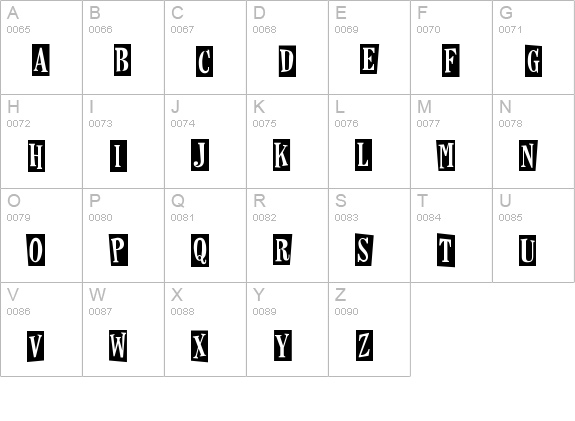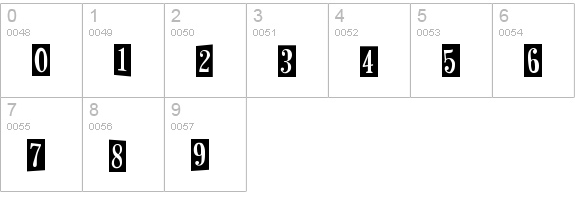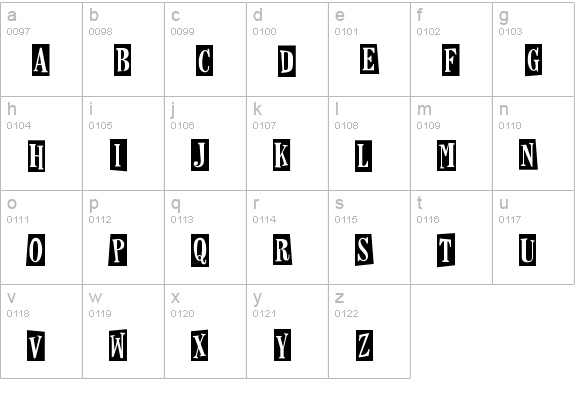
Horseshoes And Lemonade Font Details
Horseshoes And Lemonade font is a charming and whimsical typeface that exudes a sense of rustic charm and nostalgia. Perfect for adding a touch of handmade warmth to your designs, this versatile font is a great choice for a wide range of projects, from invitations to branding to social media graphics. With its playful curves and unique letterforms, Horseshoes And Lemonade font is sure to stand out and make a statement. Whether you're looking to create a cozy and inviting atmosphere or add a touch of whimsy to your designs, this font has got you covered. And the best part? Horseshoes And Lemonade font is available for free download at FontsMarket.com! So go ahead and add this delightful font to your collection today and let your creativity shine.